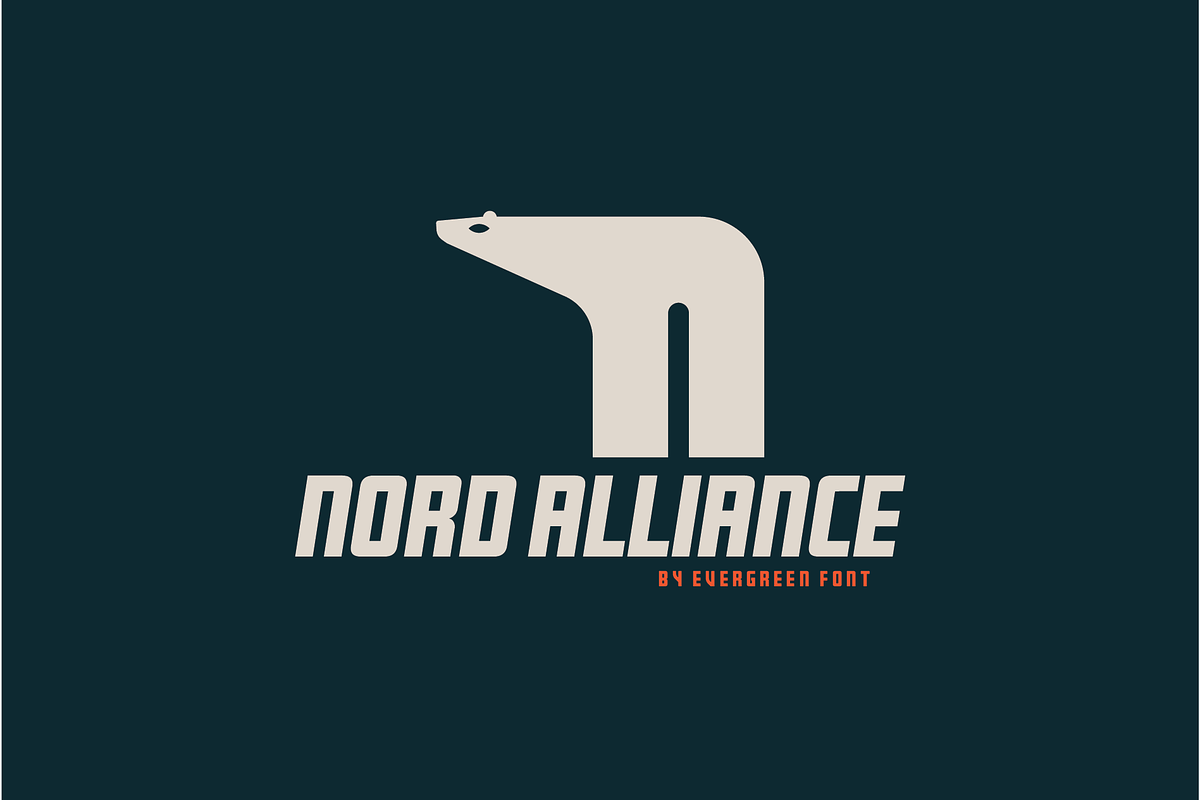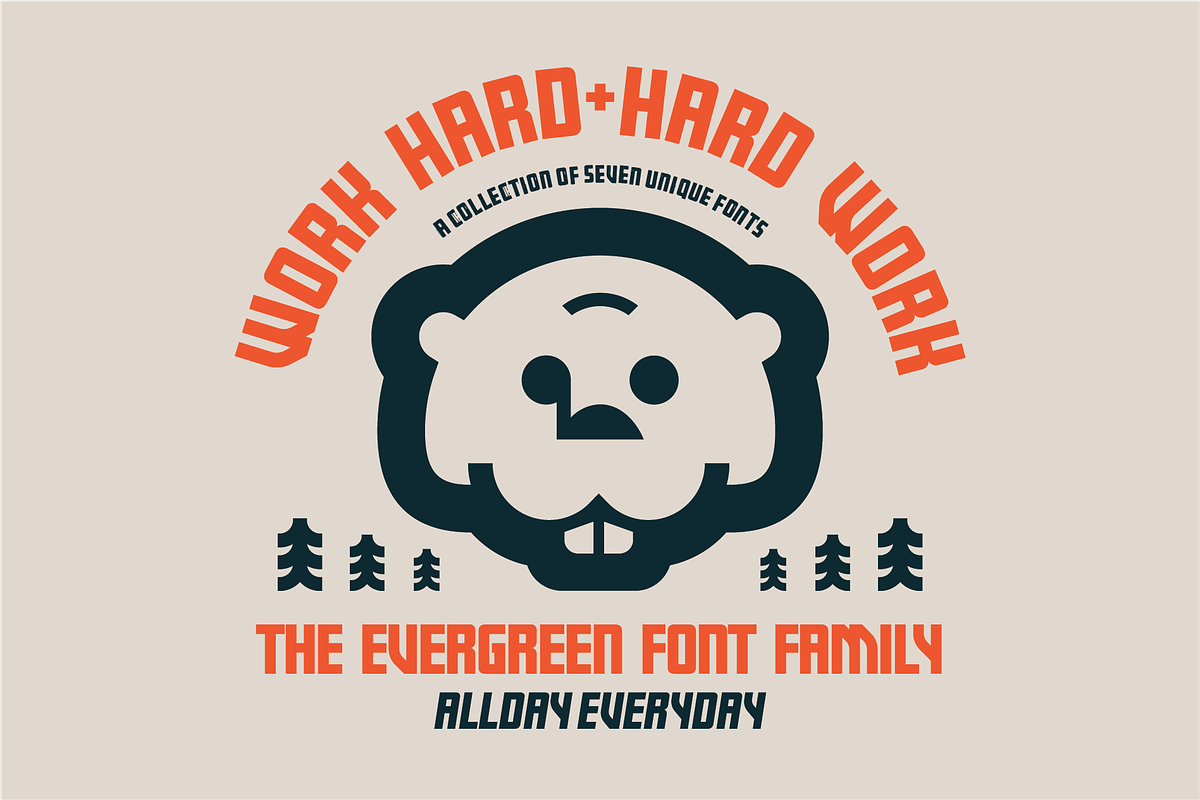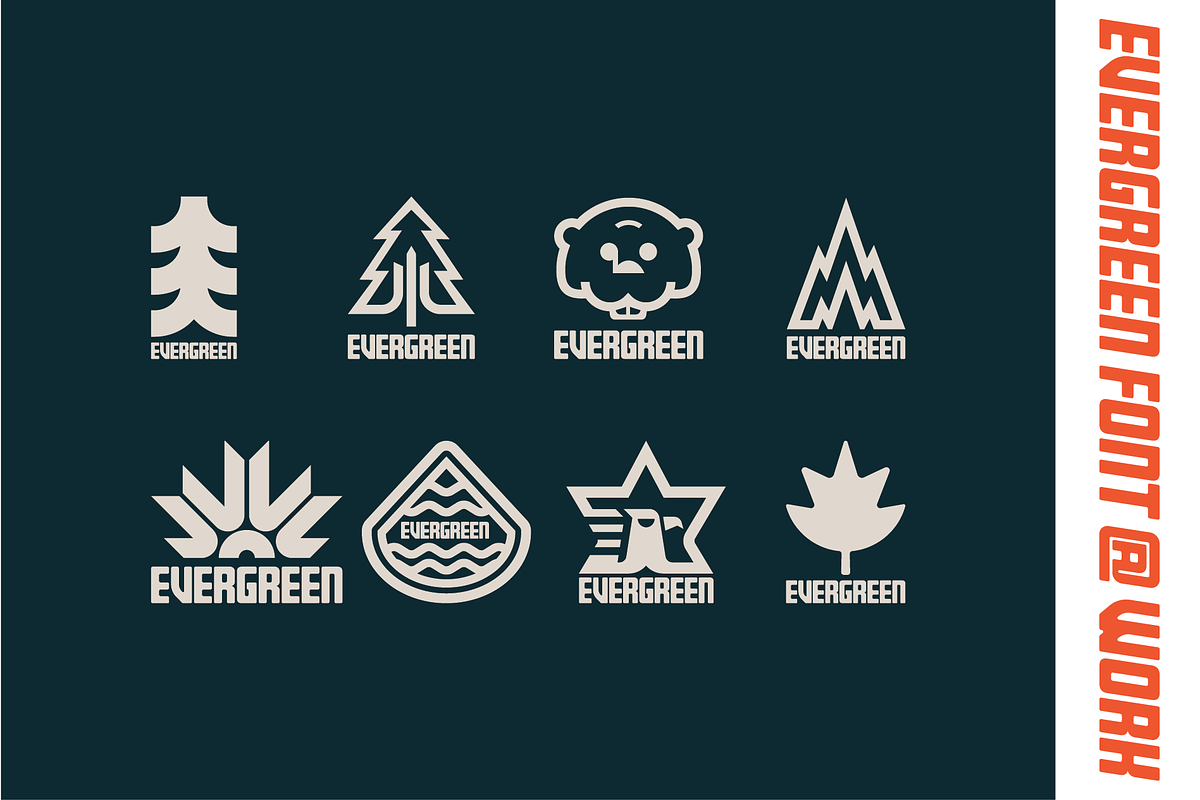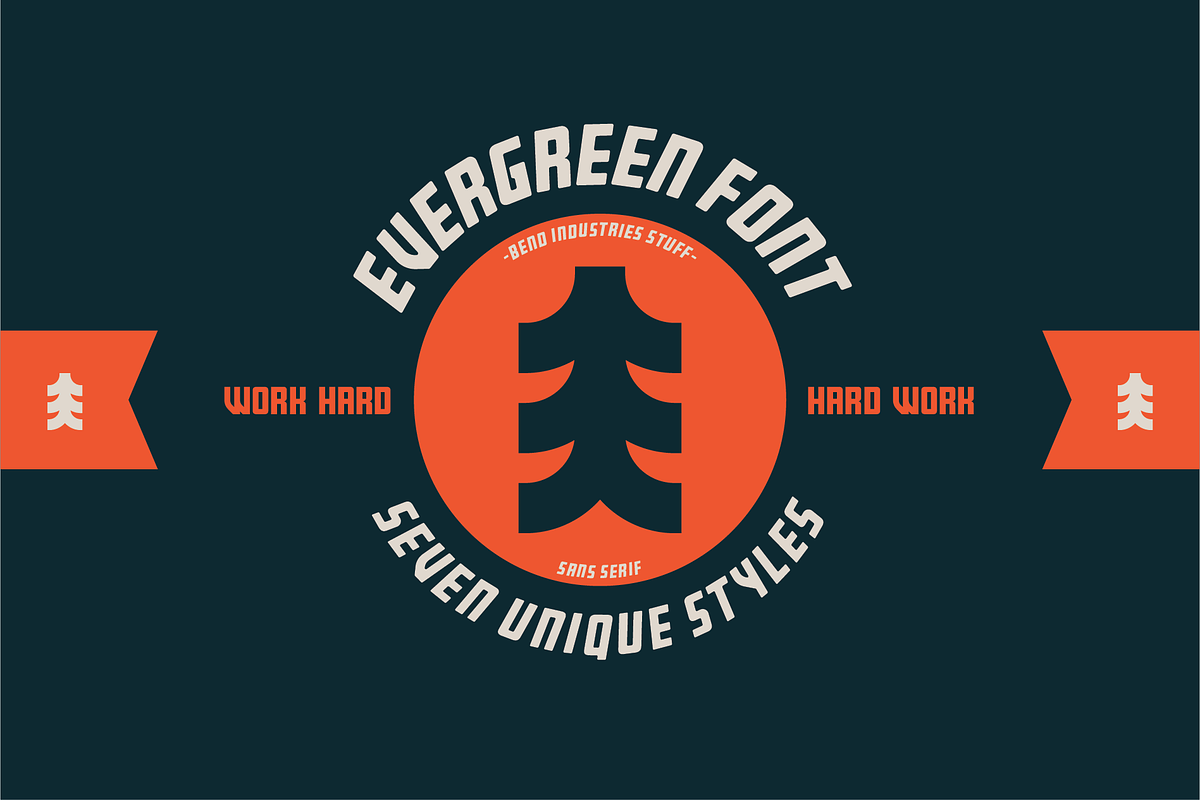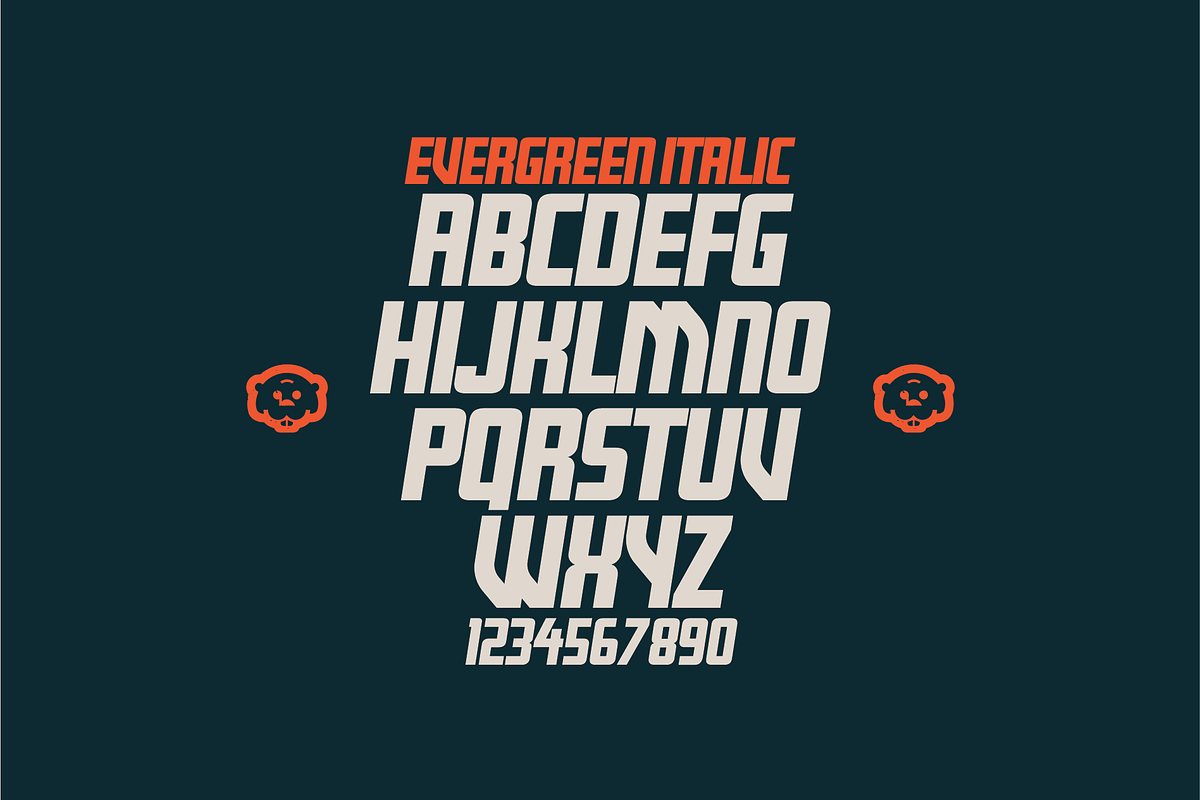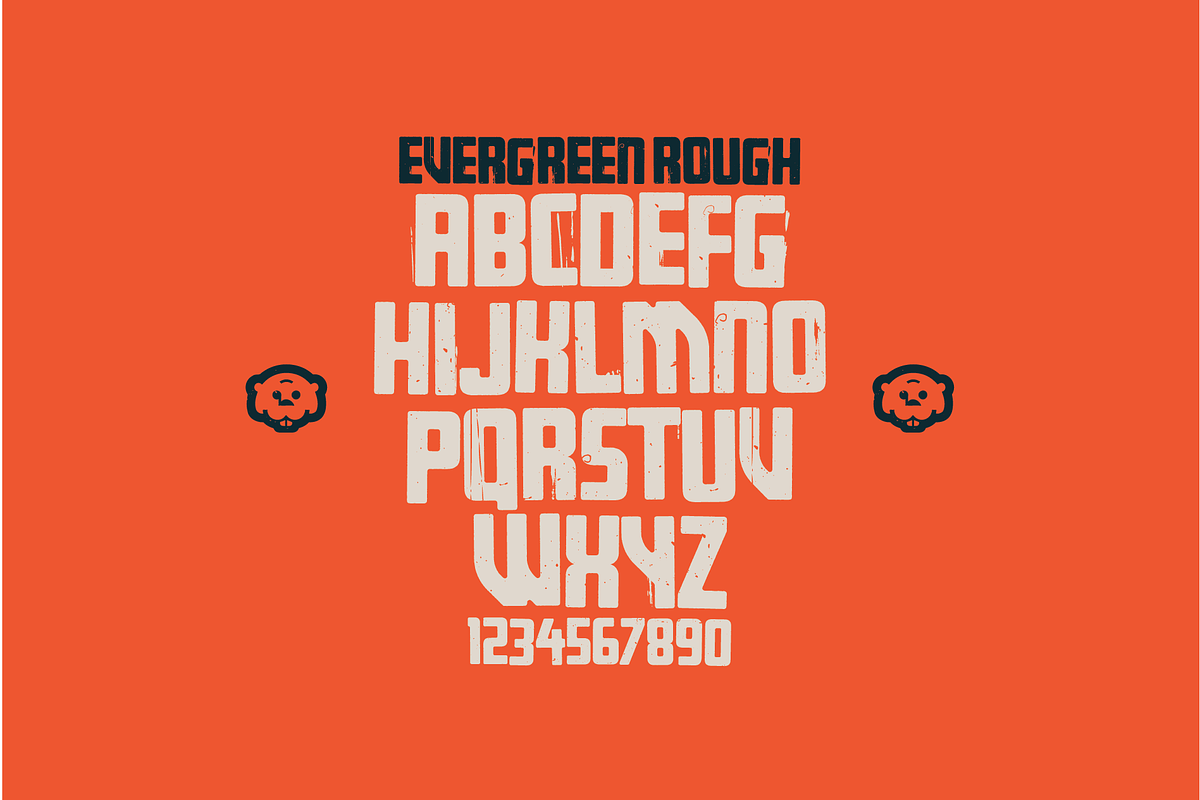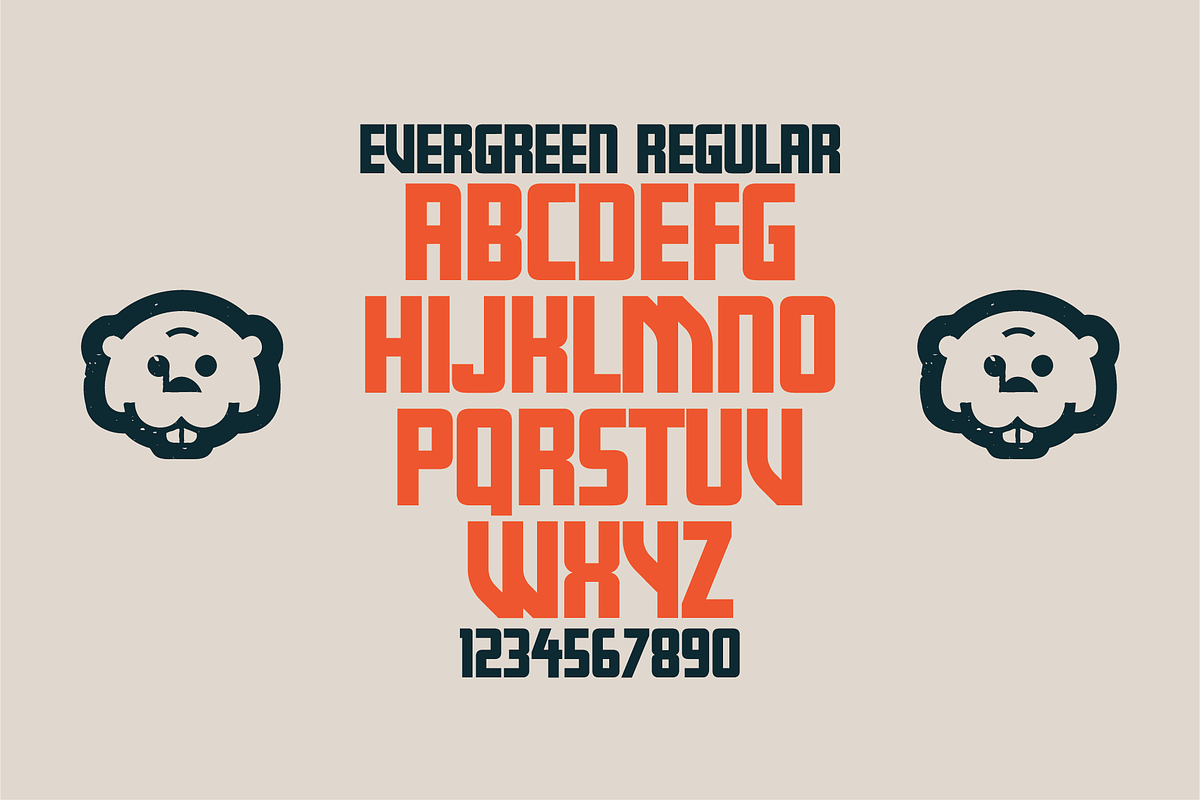
Evergreen Font | 7 Bold Styles
Evergreen is my venture into type design that really aligns with my design style and one that I'll use often. This is the perfect style for a ton of project options. When a bold simple style is needed or even with the rough you can open the door to that distressed look. Bold type like Evergreen is incredible for really driving impact in your designs.